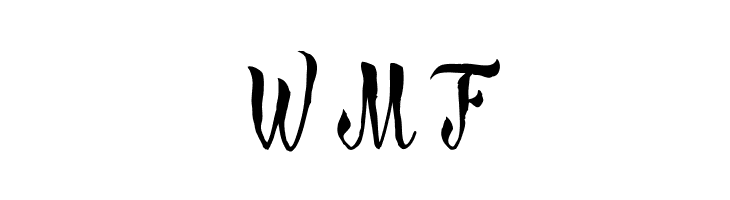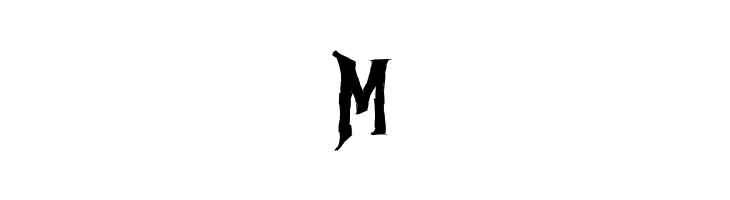
A playful, handwritten-style font with smooth, flowing curves.
A bold, decorative font with a modern blackletter style and distressed texture.
A bold, edgy font with a hand-drawn, graffiti-like style.
A bold, hand-painted style font with expressive, uneven strokes.
A bold, angular font with a modern blackletter style.
A bold, expressive script font with a hand-drawn, artistic style.
A bold and expressive script font with dramatic flourishes.
A bold, Gothic-inspired font with sharp angles and brush-like strokes.
A bold, jagged font with a gothic, horror-inspired design.